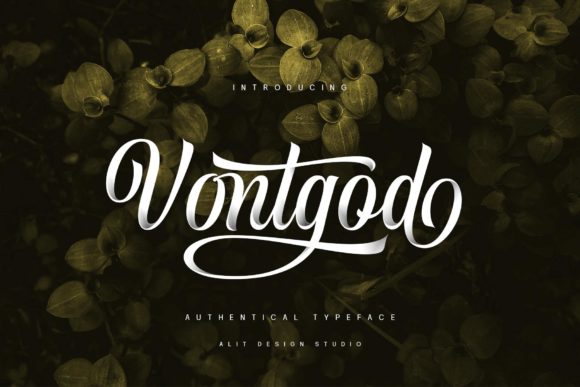
Dive into the realm of sophistication with Vontgod Typeface, a captivating script font family that exudes elegance and grace. Inspired by the timeless essence of the 1800s, Vontgod masterfully blends classic charm with contemporary aesthetics, resulting in an exquisite typeface that breathes life into your designs.
Step into a world of visual allure, where the details of Vontgod Typeface unveil a symphony of subtle curves and intricate strokes. Each letter dances across the page, forming words that whisper tales of elegance and refinement. The smooth flow of the characters creates a harmonious rhythm, guiding the eyes effortlessly through your designs.
Vontgod Typeface is a versatile chameleon, adapting seamlessly to a myriad of design concepts. Whether you seek to craft elegant logos, alluring social media graphics, or captivating website layouts, Vontgod rises to the occasion, adding a touch of timeless sophistication to every project. Its PUA encoding ensures effortless access to a treasure trove of glyphs and swashes, expanding your creative possibilities to limitless horizons.
Unleash your creativity and embark on a typographic adventure with Vontgod Typeface. Experience the joy of crafting designs that radiate an aura of timeless elegance. Let Vontgod Typeface be your muse, inspiring you to create masterpieces that capture hearts and leave an unforgettable impression.
Seize the opportunity to elevate your designs to new heights of refinement. Embrace the allure of Vontgod Typeface today and embark on a journey of typographic enchantment.